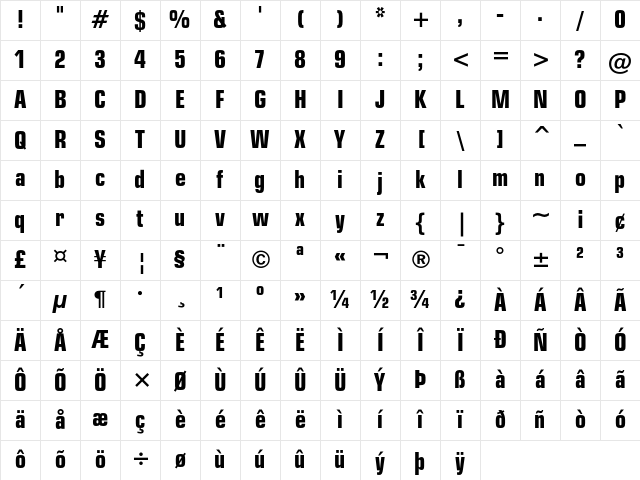
Square 721 Bold Condensed
Style: Bold Condensed
Square 721 Family
Square 721 Bold Condensed
Design Context for Square 721
Square 721 is a composed and adaptable typeface that performs quietly and consistently across a wide range of design contexts. Its bold stroke weight gives it real presence on the page. Its narrow stance lets it pack a punch even in space-constrained designs.